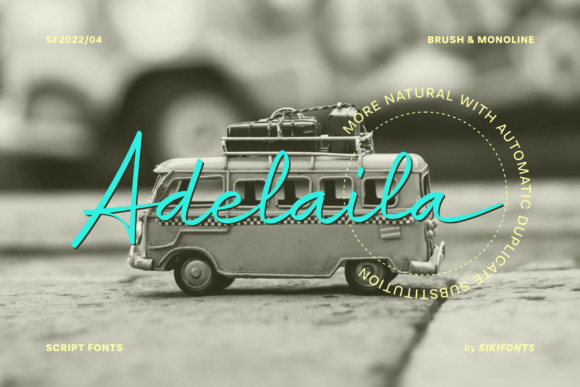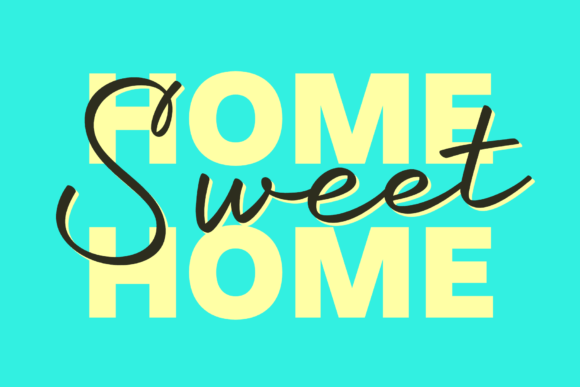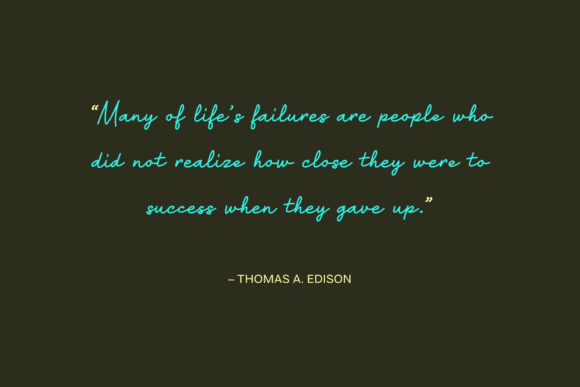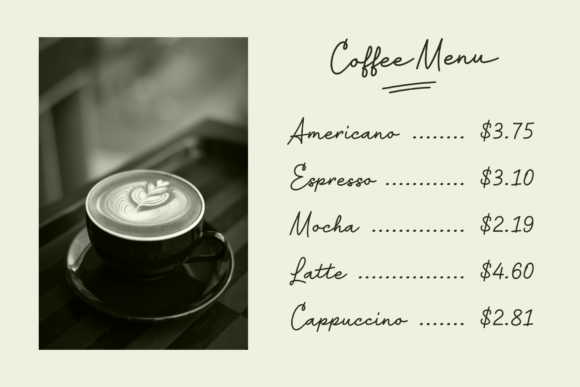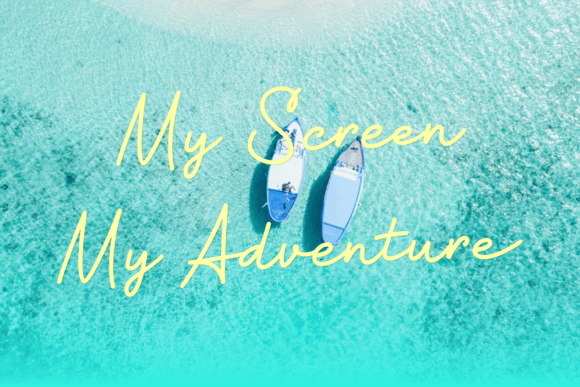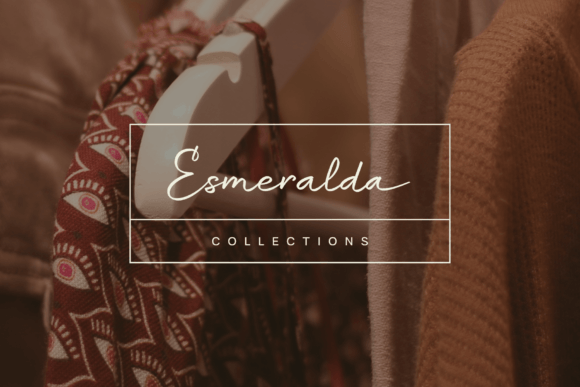
The Perfect Handwritten Touch
Have you ever been brainstorming ideas for a special project, and suddenly, the perfect font pops into your mind? For designers, this moment is a game-changer. For me, it happened when I stumbled upon the Adelaila Font – a stunning script font that adds a touch of elegance to any design. With its charming, handwritten feel, it’s the perfect choice for everything from wedding invitations to business cards.
Adelaila Font is designed to make a lasting impression, and its versatility is what sets it apart. Whether you’re creating a romantic quote or a professional logo, this font is sure to elevate your design. For designers, the value of Adelaila Font lies in its ability to add a personal touch to any project, making it stand out from the crowd. With its beauty and sophistication, Adelaila Font is a must-have for any designer looking to add a handwritten touch to their work.
Adelaila Font Key Features
- Font Family: Adelaila
- Font Style: Script
- Unique Characteristics: Adelaila Font features elegant, cursive script with a mix of modern and vintage elements, making it suitable for various design projects, including invitations, wedding stationery, and branding materials.
Designer Review: Adelaila Font
Overall, I think Adelaila Font is a beautiful, elegant script font that would work well for a variety of projects, particularly those that require a touch of sophistication and romance ✨. The font’s flowing lines and subtle flourishes evoke a sense of luxury and refinement.
Here are some of the things that I think work well about Adelaila Font:
- The font’s high level of legibility, even at smaller font sizes ✨
- The variety of styles available, including regular, bold, and italic ✨
However, I do have a few concerns:
- The font’s limited character set, which may not be ideal for projects that require a wide range of special characters ⚠️
Overall, I think Adelaila Font is a solid choice for designers who are looking for a high-end script font. However, it may not be the best option for projects that require a wide range of characters or a more budget-friendly solution.
Getting the Most Out of Adelaila Font
To get the most out of Adelaila font, try the following tips:
- Use the font in combination with other elegant fonts for a sophisticated look.
- Use the font to create beautiful, handwritten text effects.
Adelaila font is perfect for:
Alternatives to Adelaila Font
Oswald is a sans-serif font that is highly legible and versatile. It is suitable for use in headings, titles, and body text, making it a great choice for a wide range of applications. Oswald has a similar feel to Adelaila Font, but with a more modern and edgy aesthetic.
Comparison: Oswald Font is more geometric and angular compared to Adelaila Font, which is more elegant and refined.
Lato is a sans-serif font that is highly customizable and adaptable. It is suitable for use in digital and print media, making it a great choice for designers who need a font that can handle a variety of applications. Lato has a similar feel to Adelaila Font, but with a more playful and youthful aesthetic.
Comparison: Lato Font is more rounded and friendly compared to Adelaila Font, which is more formal and sophisticated.
Montserrat is a sans-serif font that is highly legible and modern. It is suitable for use in headings, titles, and body text, making it a great choice for a wide range of applications. Montserrat has a similar feel to Adelaila Font, but with a more urban and edgy aesthetic.
Comparison: Montserrat Font is more condensed and energetic compared to Adelaila Font, which is more relaxed and refined.
Open Sans is a sans-serif font that is highly legible and versatile. It is suitable for use in digital and print media, making it a great choice for designers who need a font that can handle a variety of applications. Open Sans has a similar feel to Adelaila